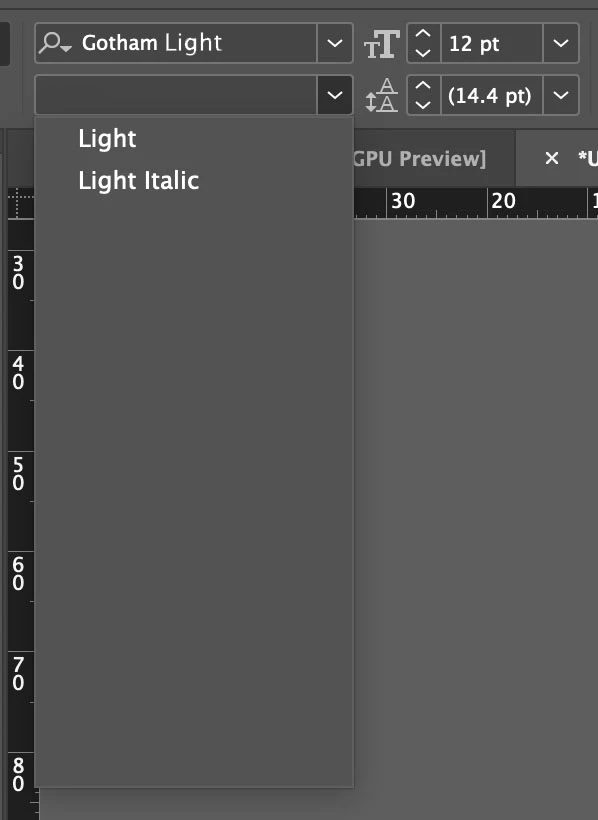
Font variations splitting between the same Typeface
I have a few colleagues who have downloaded the full Gotham typeface set. But it's split under two different sets in the Adobe (and any other type using software).
For example, they can select 'Gotham' in the main set choice, and then in the font options, they can choose 'Thin, Extra Light, Bold, Extra Bold etc', but to choose Gotham Light, they need to go back to the main set options, and choose 'Gotham Light' in itself, and then under that set, you can choose 'Light' again, so it ends up as 'Gotham Light' - 'Light'
It's worth noting this exact set works fine on mine and another colleague's laptop. And I can choose Gotham as the main set, and then every single font variability is available in the sub menu.
We can't work out, why on earth this is happening on most of my colleagues' laptops, but not ours. Does anyone have any ideas to try please.
I've attached a couple of mocked up screenshots to demonstrate what I mean.
I have a few colleagues who have downloaded the full Gotham typeface set.
Downloaded from which site?
I can't find out where from, I have only recently started at this company, and I'm unsure where they have come from, no-one I've asked seems to know. I'm aware there could be issues with the font in terms of where it's been sourced from, however I wanted to ask the question to see whether there could be anything else at play here.
I think the problem is likely some kind of bug in the font files. Which operating system are you using, Mac OSX or Windows?
I know the Windows OS can be a little funny with how it groups styles in font families. Part of the problem is, deep down, Windows still thinks a type family has only 4 styles (Regular, Italic, Bold and Bold-Italic). Modern type families often have dozens of styles. Some have more than a hundred styles. Variable fonts provide even more possibilities. Anyway, Windows can be bad at breaking one type family into multiple groups in the Windows fonts folder. That can then show up in the font menu within various applications. Most type foundries will test their fonts on multiple platforms and make adjustments when needed.
When I bought Gotham (more than 10 years ago) the package included separate OpenType and Postscript Type 1 font files. If the font files you're using were conversions made from Type 1 fonts that could be a source of the problem. T1 fonts aren't cross-platform compatible; a conversion to TrueType or OpenType format might have glitched something.
First of all just to be clear, Gotham is not a type family that is available thru Adobe Fonts. Monotype recently acquired the Hoefler&Co foundry that owned the rights to Gotham. Tobias Frere-Jones designed the Gotham typeface, but he has his own separate company after a bitter falling out and legal battle with Jonathan Hoefler. Several of Frere-Jones' type families, such as Interstate, are available via Adobe Fonts.
Regarding Gotham and how it appears in Adobe software, such as Illustrator, I'm not seeing any issues with the copy I legally purchased in the late 2000's (when Frere-Jones was still at HFJ). All 16 styles of Gotham appear in the same menu. None of the sub styles, such as Light and Light-Italic are split apart from the other 14 styles in the drop-down menu.
Gotham is one of the most pirated type families due to its popularity (although its over-use is getting really tiresome, especially in sign design where people are prone to artificially squeeze and stretch letters out of their normal proportions -Gotham looks very stupid when distorted). There are many copies of Gotham floating around on the Internet. Some are bad conversions from Postscript Type 1 to OpenType or even cross platform Mac-PC conversions. People routinely share font files and don't ask questions where the fonts came from. The unpredictable behavior in the font menu could be explained by these "free" versions of Gotham being downloaded. Some bad code is likely present.